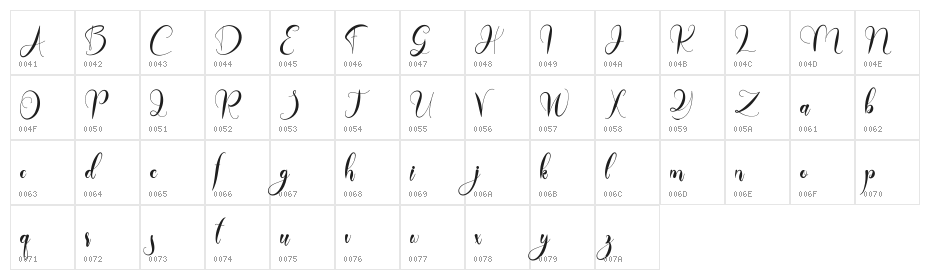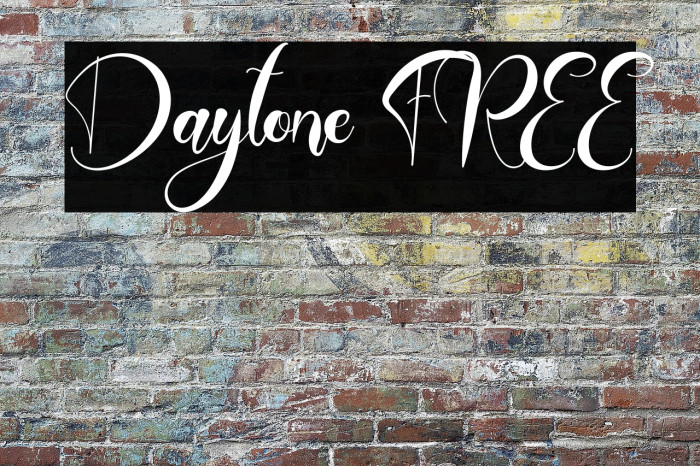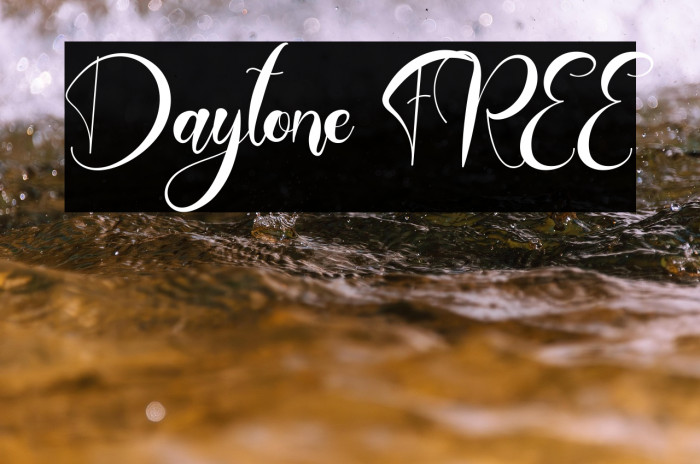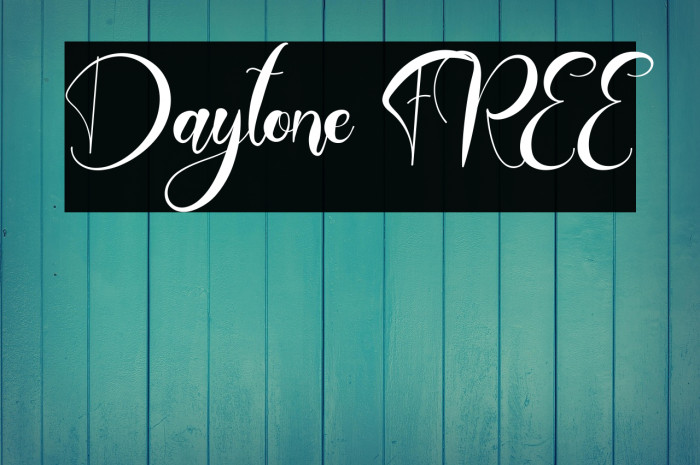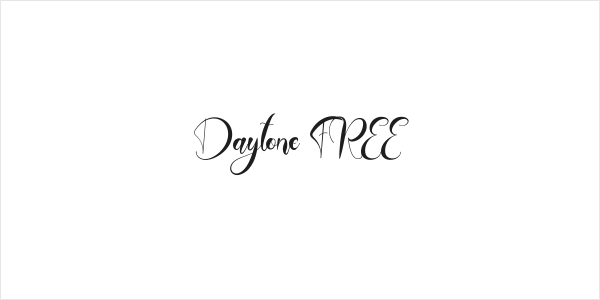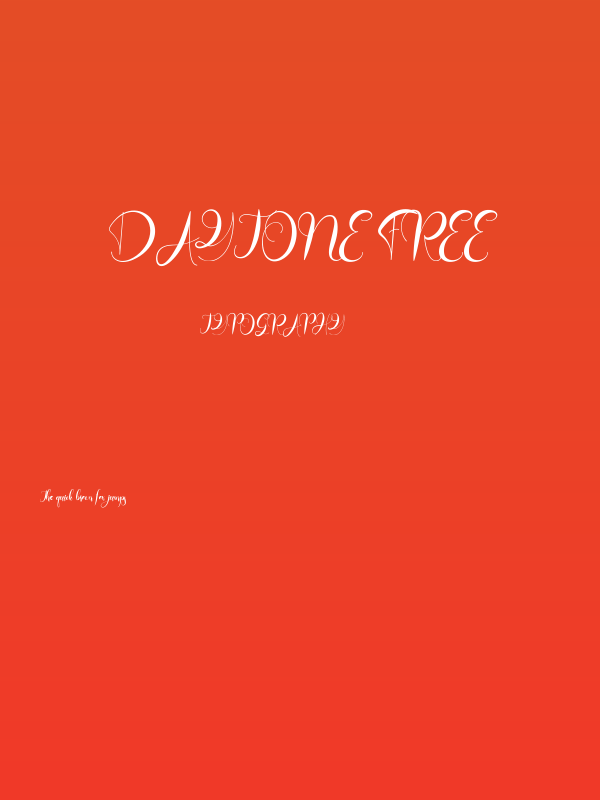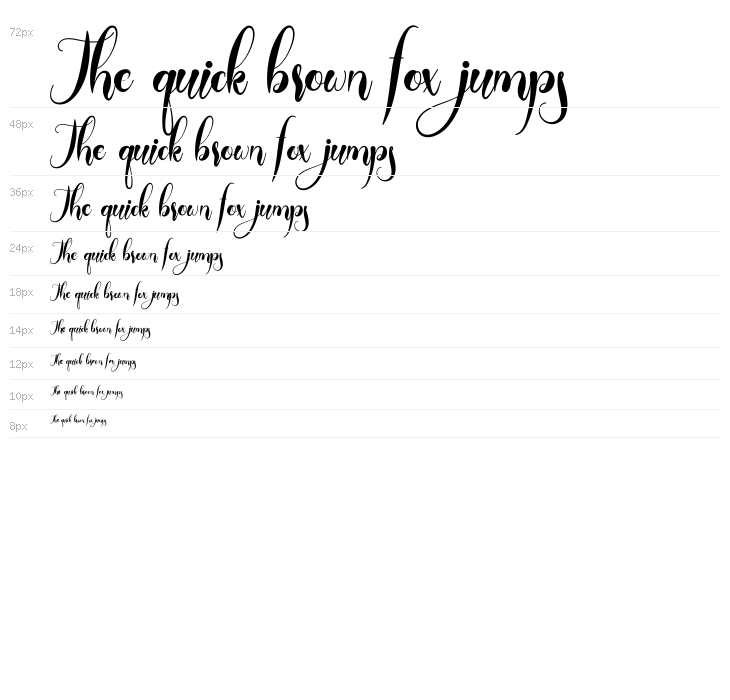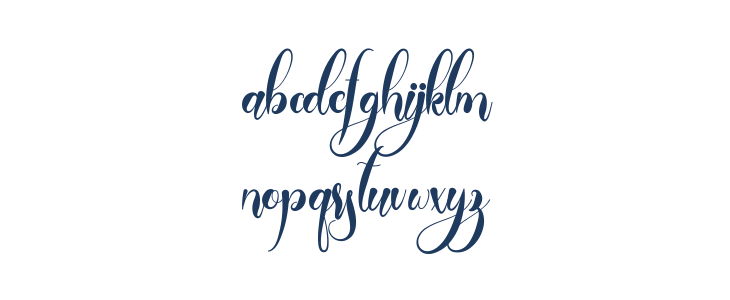
Daytone FREE Font
Daytone FREE Description
This font features an elegant and flowing script style, characterized by its intricate and decorative letterforms. The uppercase letters exhibit a graceful, looping design with extended flourishes, while the lowercase letters maintain a more compact yet equally ornate appearance. The font combines both traditional and modern elements, offering a sophisticated aesthetic that is both artistic and readable. The numerals and special characters are designed to complement the overall style, maintaining the same level of detail and elegance. This font is ideal for projects that require a touch of elegance and sophistication.
| Overall Style | Elegant, Decorative |
| Use Case | Logos, Invitations, Decorative Headlines |
| Proposed Projects | Wedding invitations, luxury branding, elegant packaging, greeting cards, and decorative headlines. |